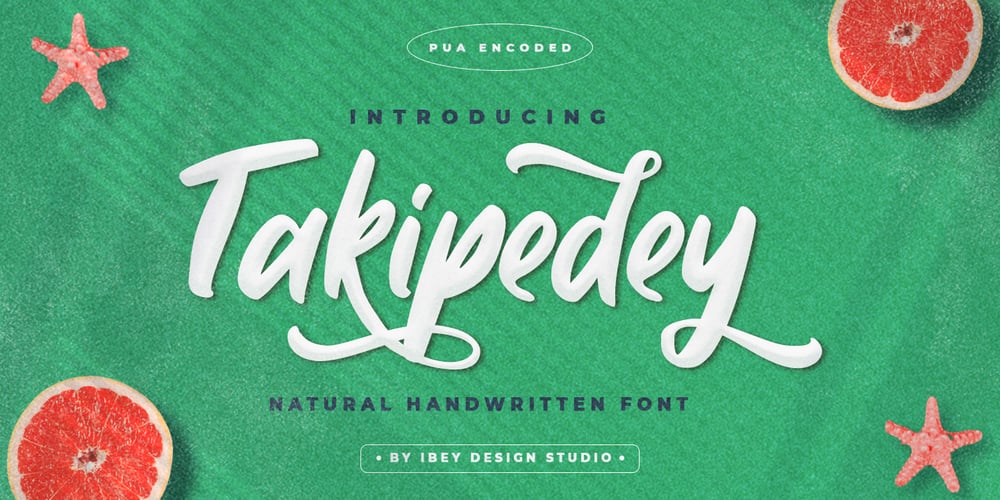
Takipedey Font Family was designed by Ikrar Bey Khubaib and published by IbeyDesign. Takipedey contains 1 styles and family package options. Takipedey Handwritten Font is a romantic and sweet calligraphy typeface with characters that dance along the baseline. It will add a luxury spark to any design project that you wish to create.